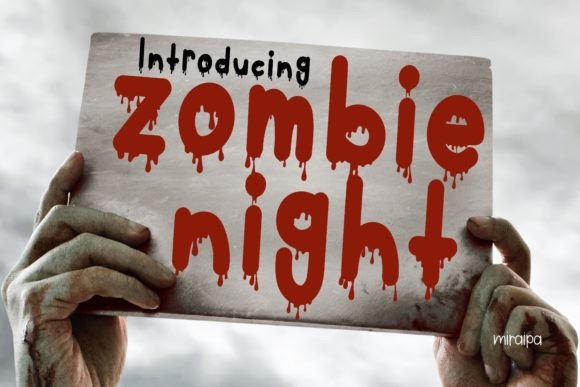
Enter the realm of the undead with Zombie Night Font, a display font that exudes terror and boldness! Perfect for those seeking a font that oozes horror and chills, Zombie Night is the ultimate choice for your eerie designs. Whether you're conjuring spine-tingling posters, crafting chilling invitations, or brewing up spine-chilling Halloween decorations, Zombie Night's haunting presence will leave a lasting impression.
Unleash the horror and bring your spooky visions to life with Zombie Night Font. Its eerie characters, dripping with the essence of the macabre, will make your designs hauntingly captivating. Prepare to be mesmerized by its captivating glyphs that dance across the screen like spectral shadows, inviting your audience into a realm of darkness and thrills.
With Zombie Night Font, you'll have the power to evoke fear and fascination. Its inky tendrils will weave their way into your designs, creating a sinister atmosphere that will send shivers down their spines. Prepare to unleash the terror and captivate your audience with a font that embodies the essence of the undead.
Embrace the darkness and succumb to the charm of Zombie Night Font. Its sinister beauty will leave your audience spellbound, craving more of its haunting allure. Dive into the abyss of creativity and let Zombie Night Font guide you through a journey of horror and delight. Experience the thrill of using a font that truly embodies the spirit of Halloween and the occult.